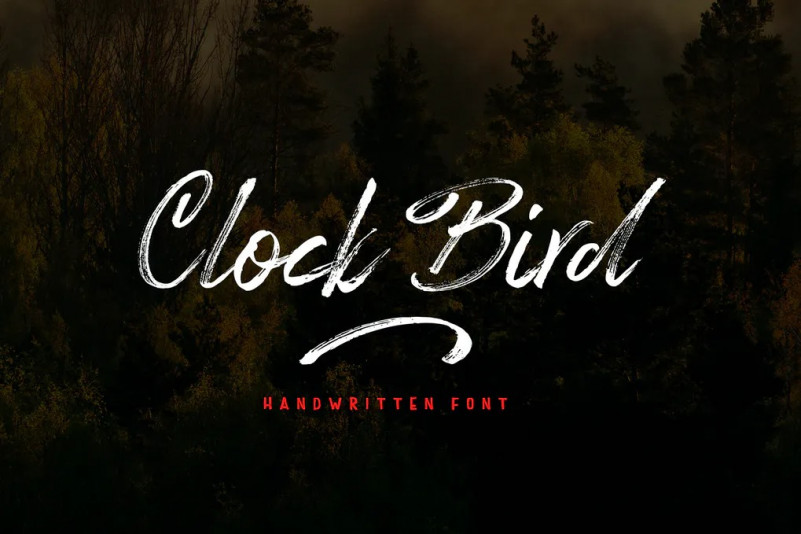
Clock bird Font
Clock bird is a very interesting new brush font. This font family is perfect for branding projects, logos, product packaging, posters, invitations, greeting cards, news, blogs, and more.